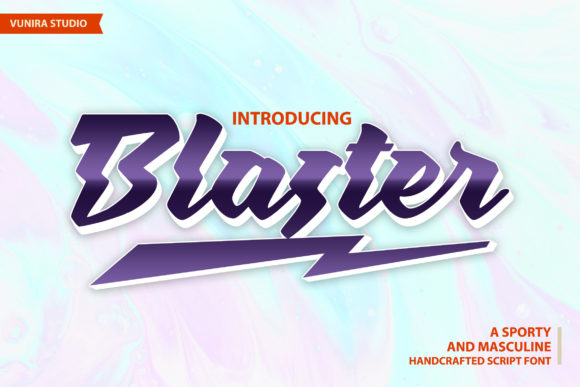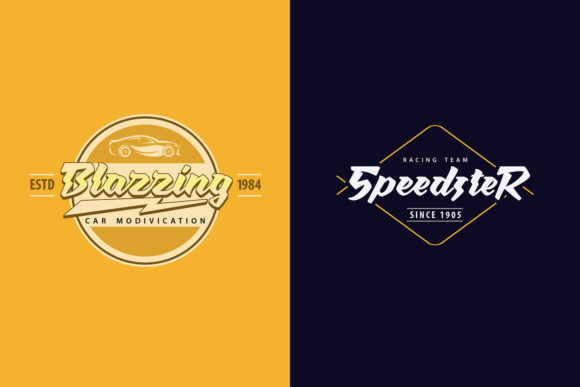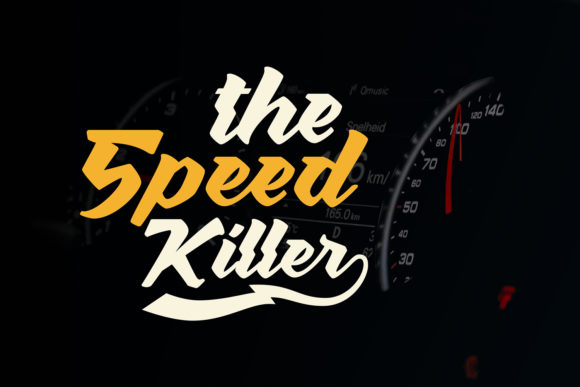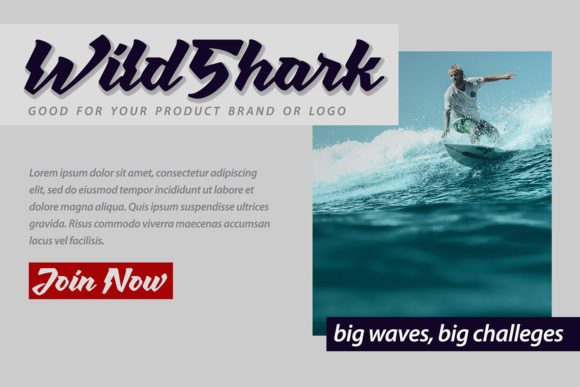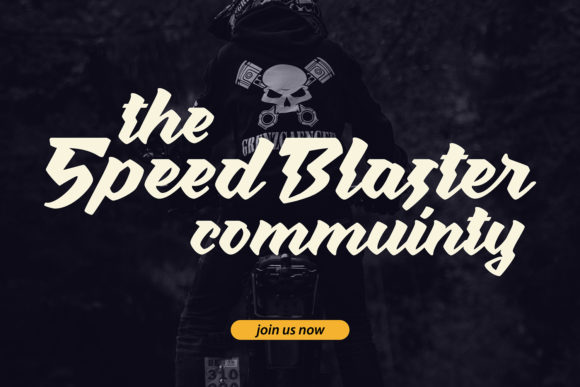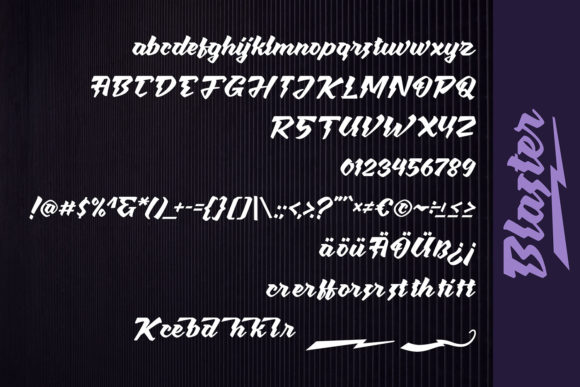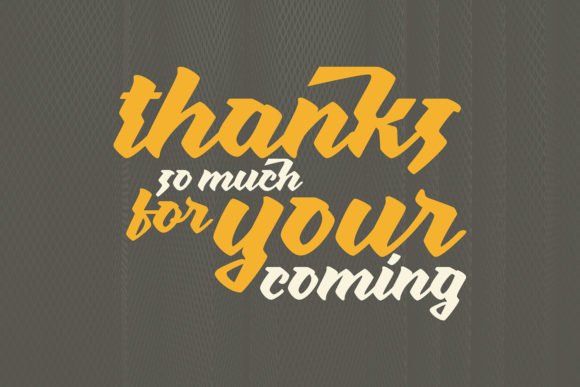
Blaster Font
About Blaster Font
Blaster is a sporty and masculine handcrafted script font with a calligraphy style. It looks beautiful on invitation like greeting cards, branding materials, business cards, quotes, posters, and more!